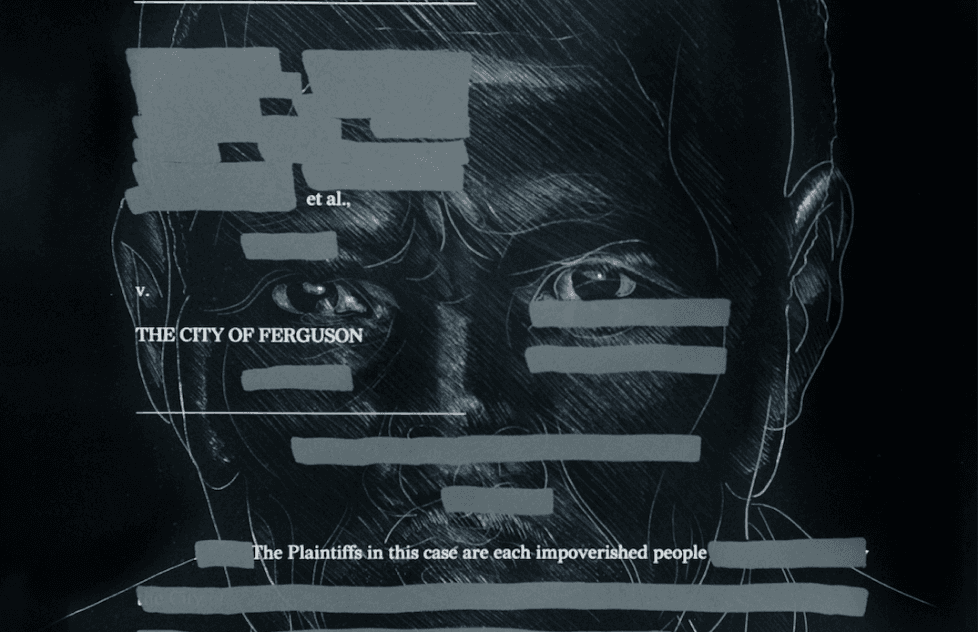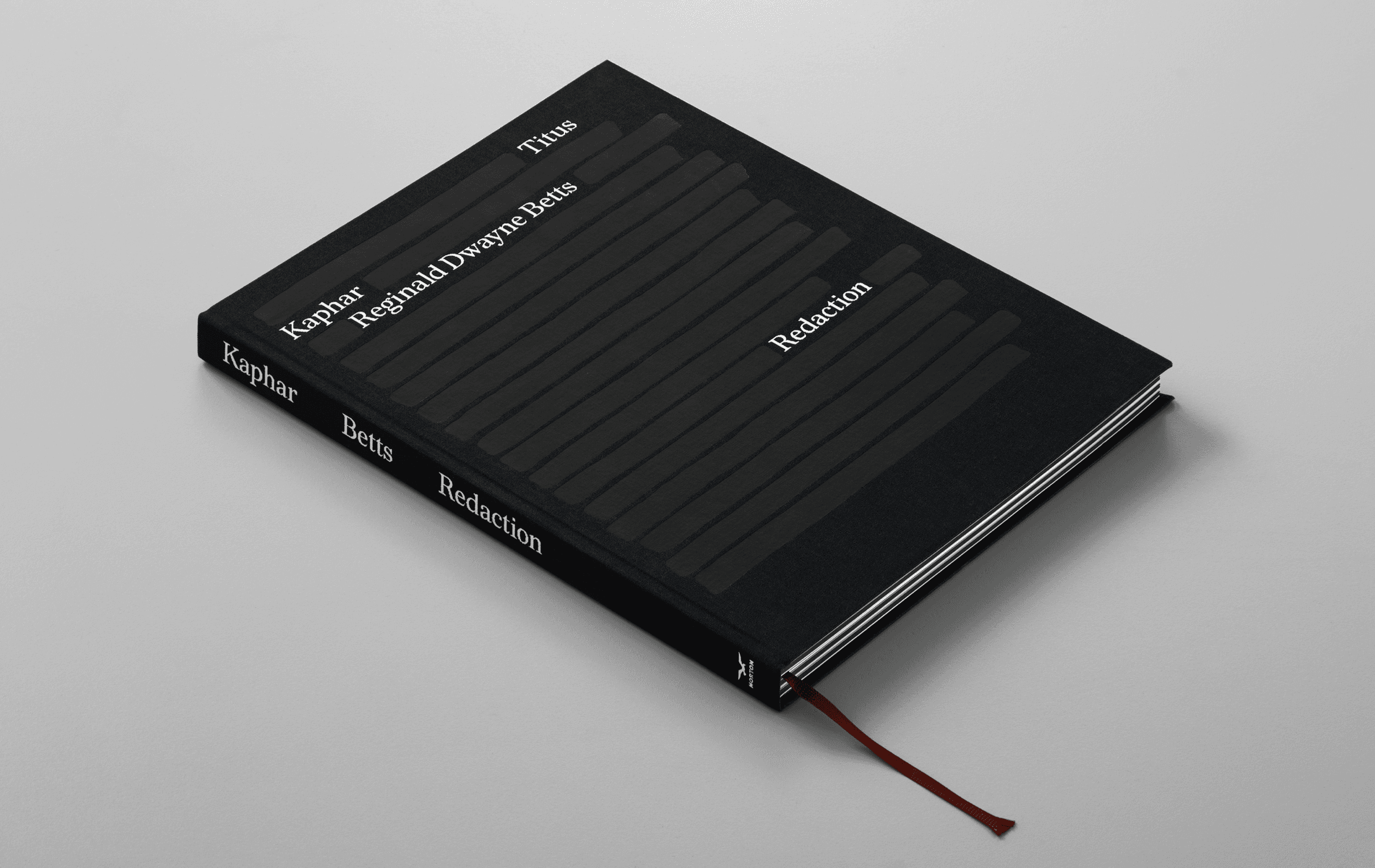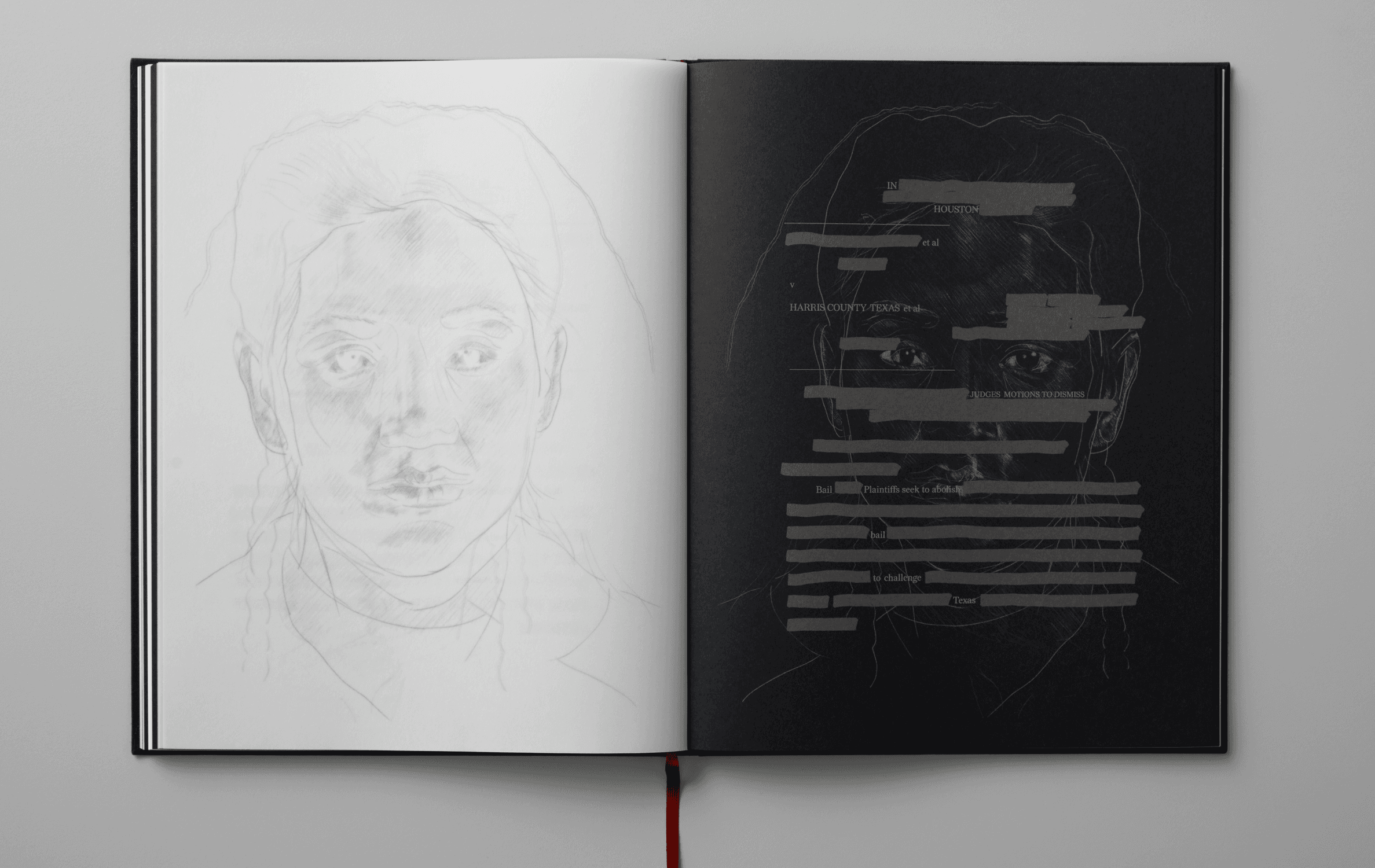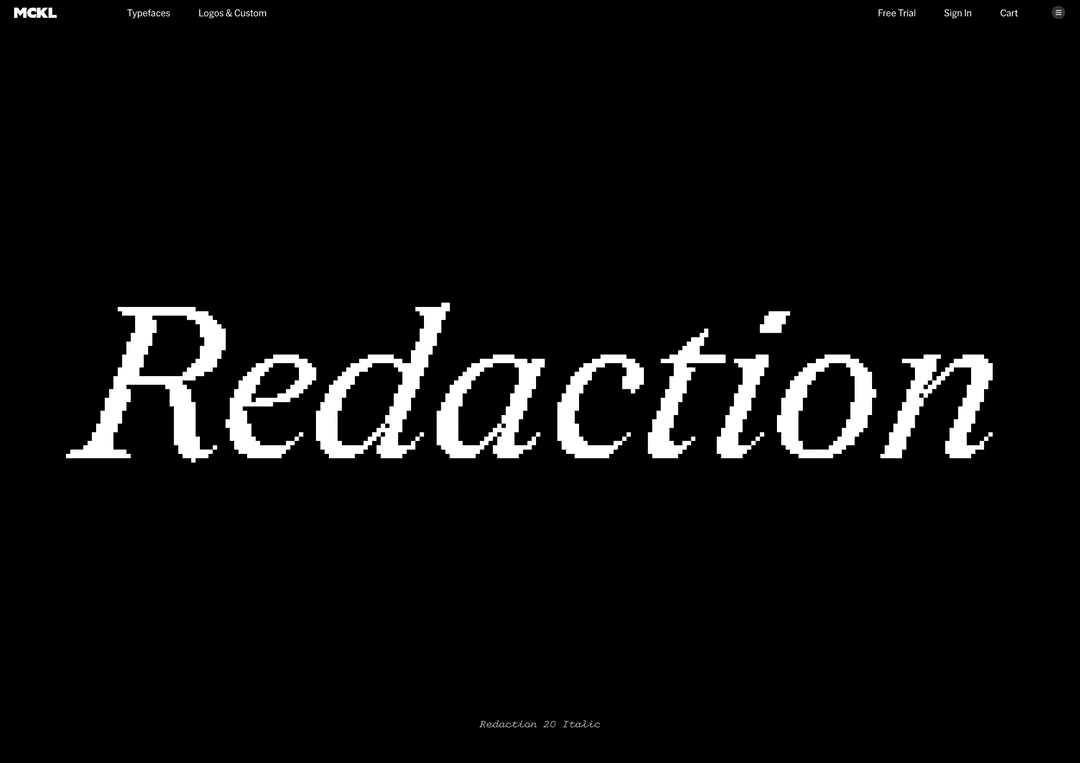
The Redaction Typeface: A Multiplicity of Typographic, Legal, and Human Histories
Redaction is a bespoke typeface commissioned by Titus Kaphar and Reginald Dwayne Betts’ The Redaction exhibition at MoMA PS1. As part of a timely conversation at the intersection of history, the legal system and social justice, the fonts will be free for personal use. In a spirit of generosity, the artists invite everyone to broaden the ethos of the exhibition by making these tools accessible to a global and engaged audience.
The Redaction project seeks to highlight the abuses in the criminal justice system, in particular the way poor and marginalized people are imprisoned for failure to pay court fines and fees. When Titus Kaphar and Reginald Dwayne Betts began their collaboration on The Redaction, they identified that typography should be an important extension of the work. Using legal documents from claims filed by the Civil Rights Corps as source material, Betts crafted new poems by redacting out superfluous information – text that is juxtaposed with Kaphar’s portraits of the individuals represented in the claims. This emphasis on text and legibility presented a unique design opportunity: to create a bespoke typeface that could be used in the work, and also serve as a scalable tool to raise awareness of the project and reach even more people. To fulfill the typographic potential of the project, Kaphar reached out to Forest Young, a colleague from Yale, now a Global Principal and Head of Design at Wolff Olins, who in turn recruited Jeremy Mickel, type designer and owner of MCKL.
The first phase of the project consisted of research and immersion. It was imperative to learn as much as possible about the history and nature of legal documents, and the various approaches to redaction. Unsurprisingly, the designers found a spectrum of redaction: forms extending beyond the simple black box — an incomplete redaction; stamps marked ‘deleted’ but not obscuring the text; white boxes that appeared to invite the user to fill in their own text, and ad hoc handmade notations, among others.
Specifically, the team noted that the vast majority of legal documents in the United States followed a set convention of using Times New Roman. The United States Supreme Court, however, dictates that all documents must be set in New Century Schoolbook. Both typefaces felt default, functional, and familiar. While they do not call attention to themselves at small size, they still command a sense of authority — attributes which the team hoped to emulate in their own design.
In reviewing historical source material, the team observed varying states of typographic degradation in the text of countless documents. As files were faxed, photocopied, and otherwise reproduced, the letterforms became bitmapped, bloated, warped, and were sometimes reduced to near-illegible forms. This particular aspect of variable legibility inspired subsequent experiments for future iterations of the fonts.
Times New Roman and New Century Schoolbook became the foundational pillars of legal typographic influence. The first goal was to draft something which simultaneously embodied both typefaces. While early tests of hybridization proved successful, the letterforms lacked a desired immediacy and contrast that could elevate them to both the abstract and conceptual, and ultimately be worthy of being incorporated into Kaphar and Betts’ work.
An early point of inspiration was the United States presidential seal, which depicts an eagle grasping arrows in one talon and an olive branch in the other. This was embraced as a potent metaphor for the extremes in the legal system: cruelty and compassion, war and diplomacy, hard and soft, white and black. This logic was then applied to the letterforms: teardrop shapes became supple and round, while acute shapes became razor sharp. When this exaggerated contrast resulted in an amplified tension, the team knew they were on the right track.
Pushing ahead, the team looked back at the early bitmap studies and document references and wondered if they could synthesize those details into the the font. By incorporating negative shapes into the letterforms, the. typeface could hint at the digital artifacts created through reproduction in fax machines and photocopiers. Peter Saville’s Power, Corruption, and Liesalbum cover for New Order served as additional inspiration; the unassuming color bar on an otherwise mundane floral still life effortlessly merges contemporary and historical narratives. A pixel fit nicely into the joins on characters like H E, but required bending and shaping to be convincing on the n s. Through trial and error, the letterform design followed an “inktrap logic” — to place negative shapes into as many of the glyphs as possible, with the additional pixel detail of a square tittle for the i dot and period.
It was always the hope to include bitmap grades of the font in order to reference the degradation of documents as they are reproduced through the legal process. As contemporary design moves through a zeitgeist of pixelation, with many incredible examples online, the team recalled the landmark designs by Susan Kare for the original Apple Operating System and many of Zuzana Licko’s early digital fonts for Emigre. The team maintained a conceptual framework for the degraded versions; it’s decidedly not merely an aesthetic. By providing a range of grades from subtly analog to nearly illegible, the typeface nods to the transformation and marginalization that many people face in the criminal justice system today, and specifically, the role and responsibility of the author of text to be conscious of legibility as a signature of power.
As part of the artists’ dedication to social justice and legal equity, the Redaction fonts are distributed under the Open Font License. You can use them freely in your products and projects – print or digital, commercial or otherwise. However, you can't sell the fonts on their own. The fonts are available in 3 styles (Regular, Italic, Bold) and 7 grades of degradation for a total of 21 fonts. All fonts have full character sets for Latin-1 language support.